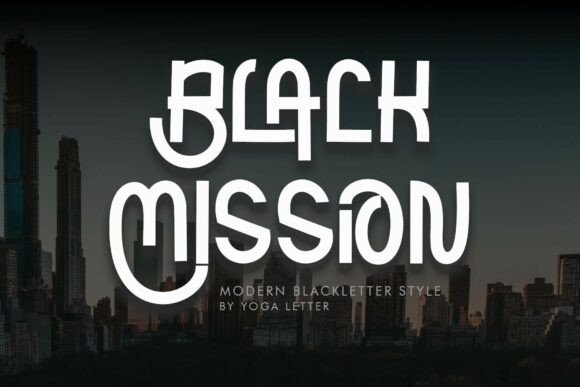
Introduction to Black Mission Font
Black Mission is a modern blackletter-style font that blends gothic elegance with contemporary flair.
Its striking letterforms are crafted with strong vertical emphasis, unique terminal curves, and stylized ligatures that add personality and motion This typeface includes full uppercase and lowercase sets, numerals, punctuation, and multilingual support, giving you flexibility across languages and design styles.
Key Features of Black Mission Font
Why Choose Black Mission Font?